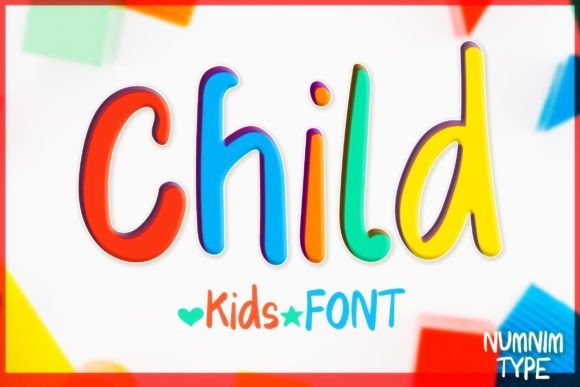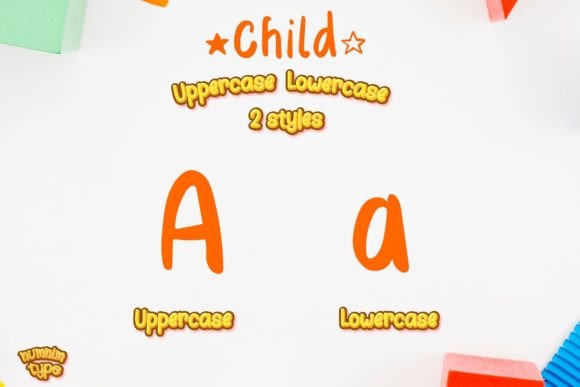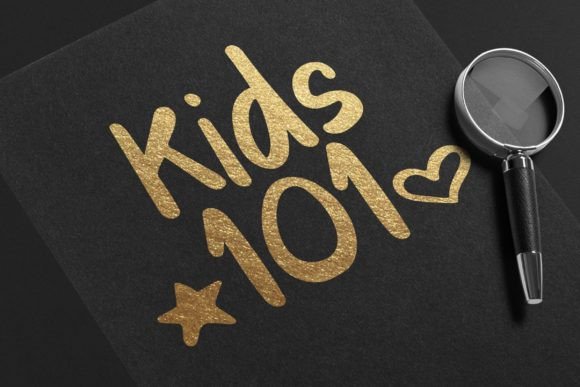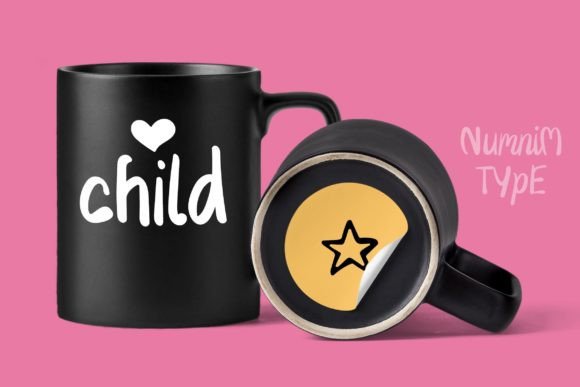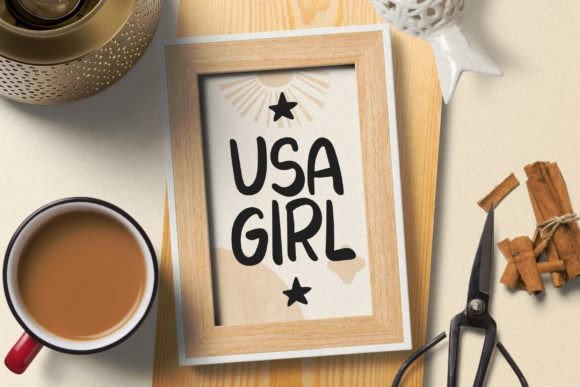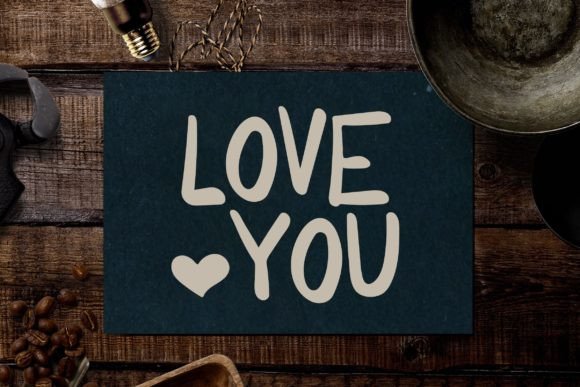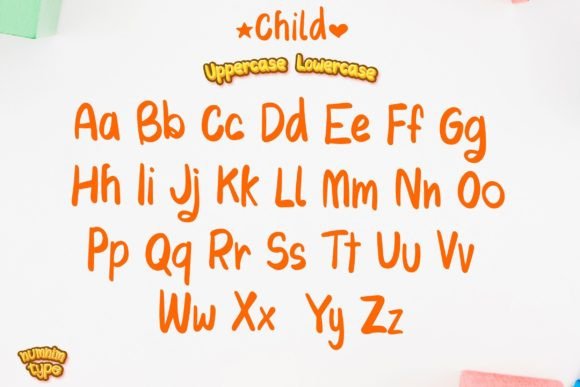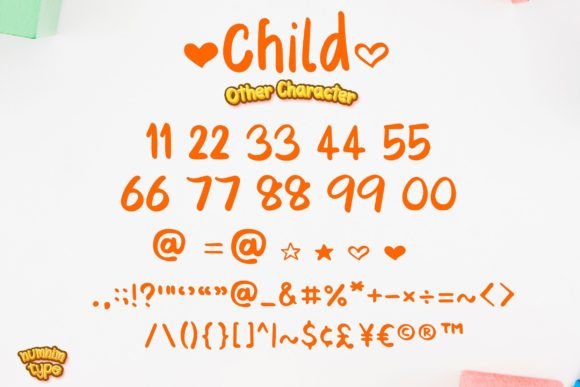
Child Font
About Child Font
“Child” is a cool and uniquely crafted handwritten font designed with a playful and fun vibe, making it a perfect choice for various creative projects. The font’s whimsical and childlike characters add a touch of charm, creating an ideal atmosphere for stickers, mugs, t-shirts, ornaments, Children’s Day event cards, event invitations, and more.
The playful nature of “Child” makes it particularly suitable for designs targeting a younger audience or those aiming to evoke a lighthearted and carefree feel. Its cool and handwritten style gives your projects a distinctive character, adding a sense of personality and joy.
Whether you’re creating merchandise like stickers and mugs, designing children’s apparel, or crafting event materials, “Child” stands out as a versatile font that brings a playful touch to your designs. The handwritten quality of the font adds an authentic and handcrafted feel, enhancing the overall appeal of your creations.
In summary, “Child” is not just a font; it’s a creative tool tailored for fun and playfulness. Its uniquely crafted characters make it suitable for a variety of applications, especially those geared towards children or projects that aim to capture the carefree spirit of youth. Let “Child” be the go-to font for infusing your designs with a cool and playful vibe.